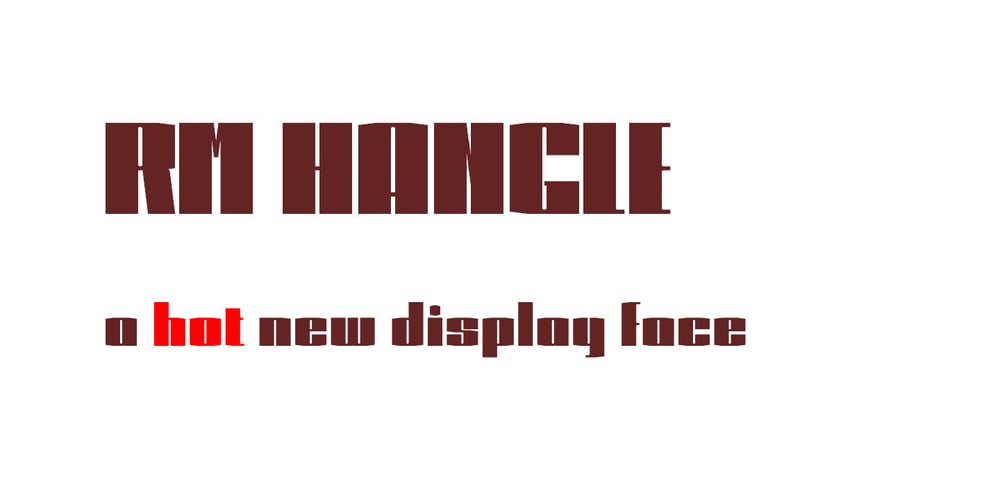
RM Hangle
RM Hangle font
RM Hangle Font Family was designed by Ray Meadows and published by Ray Meadows. RM Hangle contains 1 styles and family package options. This strong angular cousin of RM Hunky offers a bold display face. The distinctive nature of this design will be a welcome addition to any designers collection of useful fonts. Due to the nature of this design there may be a very slight lack of smoothness to the curves at extremely large point sizes (around 200 pt and above).